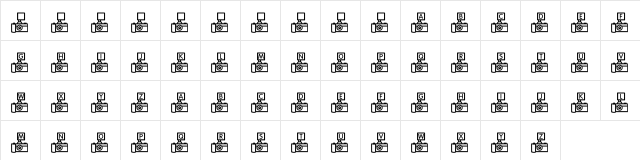
KR Camera Fun Regular Font Preview
KR Camera Fun Regular
Design Context for KR Camera Fun Typeface
KR Camera Fun trades formality for fun, with bouncy, characterful letterforms that bring warmth and energy to any project.
Font Pairing: Pairs well with a rounded or humanist sans for body copy, maintaining the friendly tone without relying on KR Camera Fun to carry extended reading.
Pro Tip: Use KR Camera Fun at larger display sizes where its expressive character can land. Pair with a clean, simple sans for body copy to maintain readability.